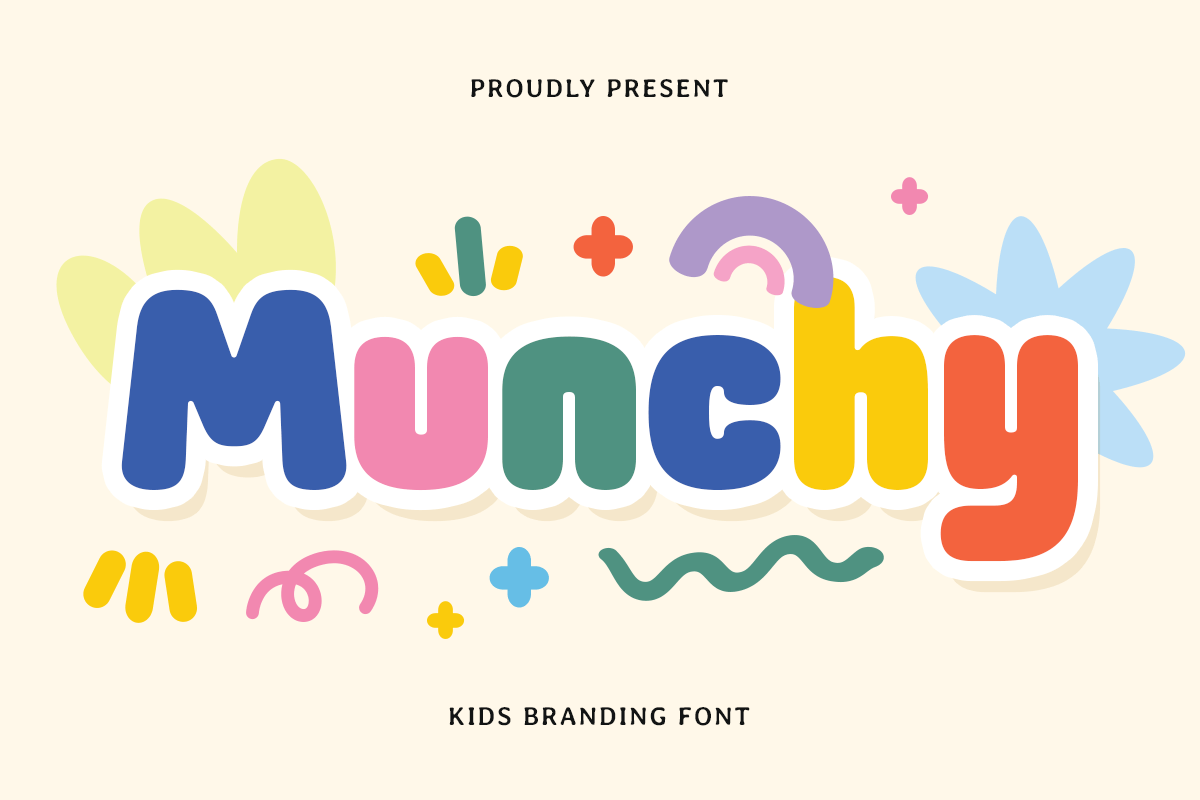
Munchy
-Kids Branding Font
Munchy - Kids Branding Font
Munchy is a bold and bouncy kids font created to bring joy and playfulness to branding and design projects. With rounded edges, quirky characters, and a friendly style, Munchy font is perfect for toy packaging, children’s books, educational materials, logos, birthday invitations, and more. It instantly captures attention with a fun and approachable personality.
Designed with kids in mind, Munchy font balances readability with charm, making it ideal for both headlines and creative content. Whether you're designing a brand for a daycare or launching a playful campaign, Munchy font adds warmth and happiness to your visual identity.
Let Munchy font brighten up your next design with its energetic character and creative flair—it’s fun, bold, and full of life!
Munchy Kids Branding Font Features:
• Playful and Rounded Letterforms
• Perfect for Kids Products, Logos, Invitations & Books